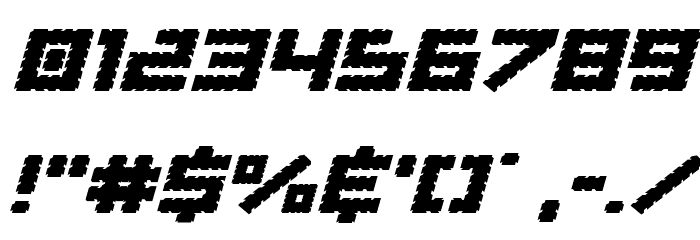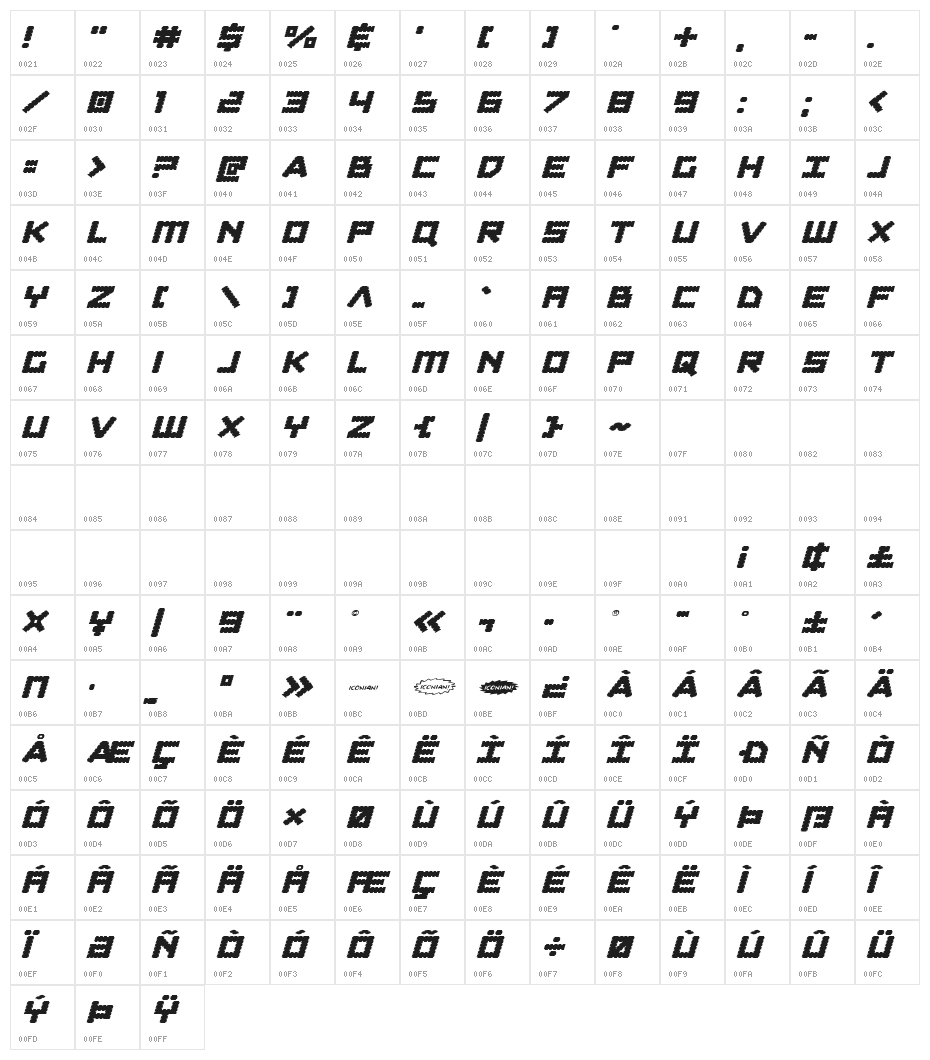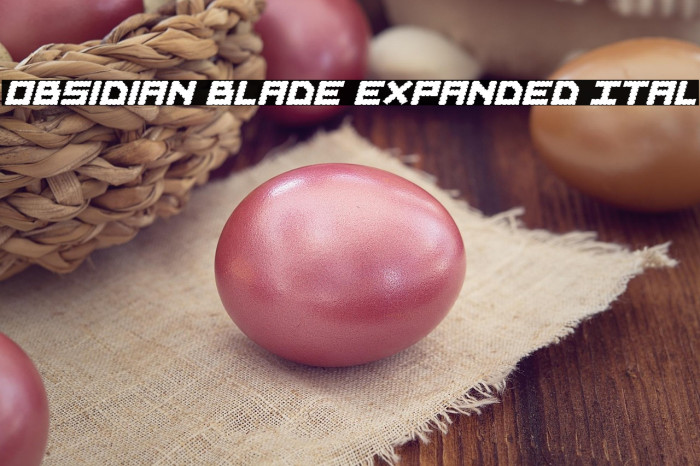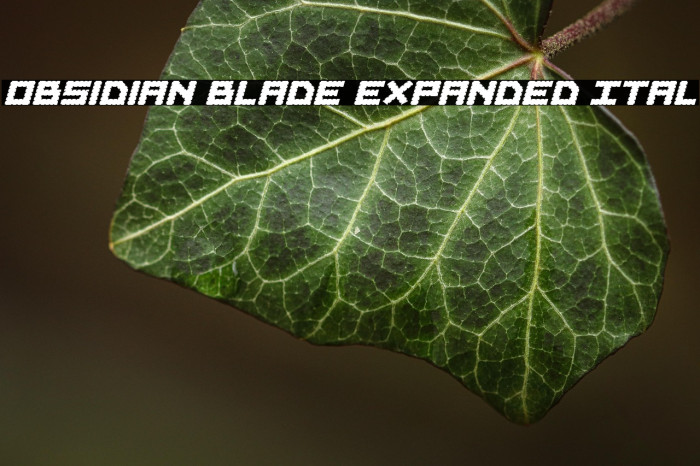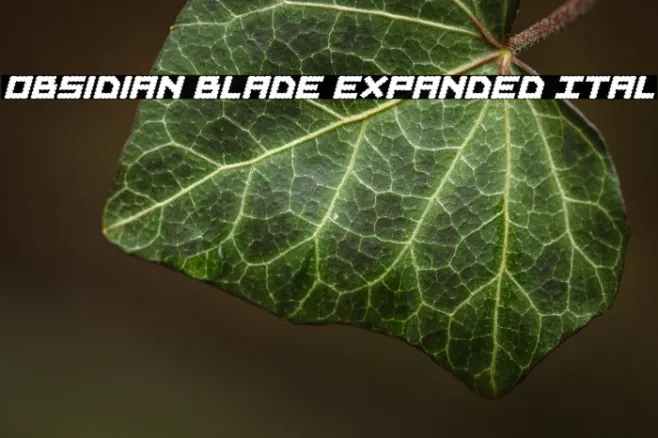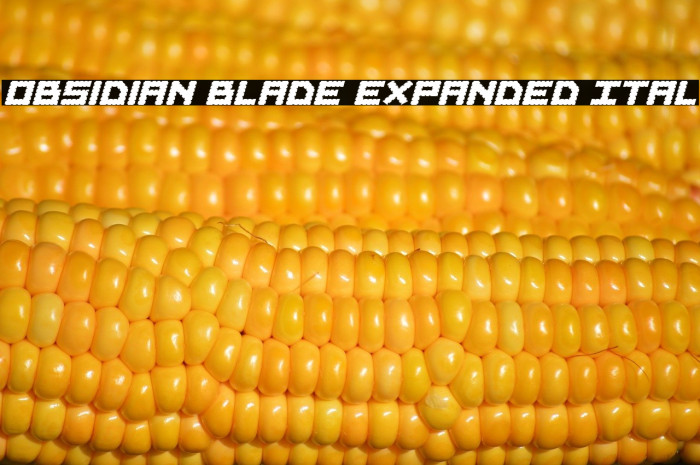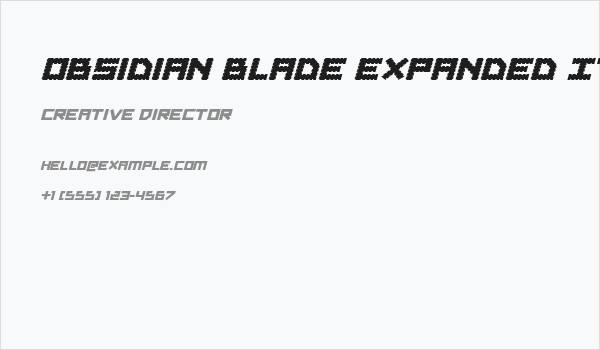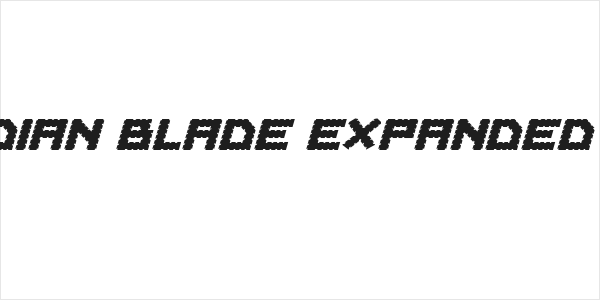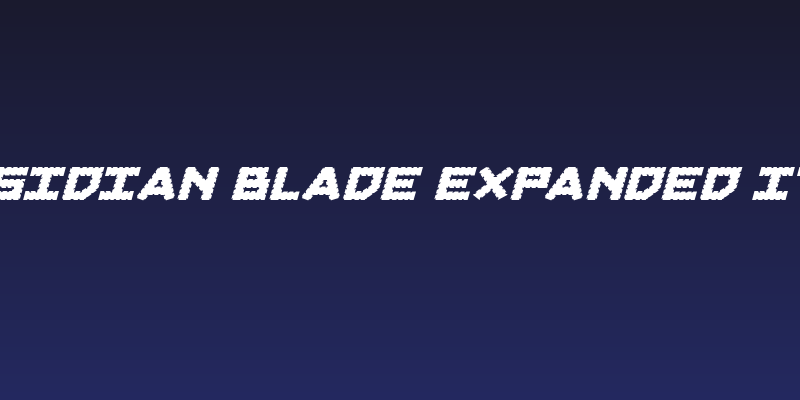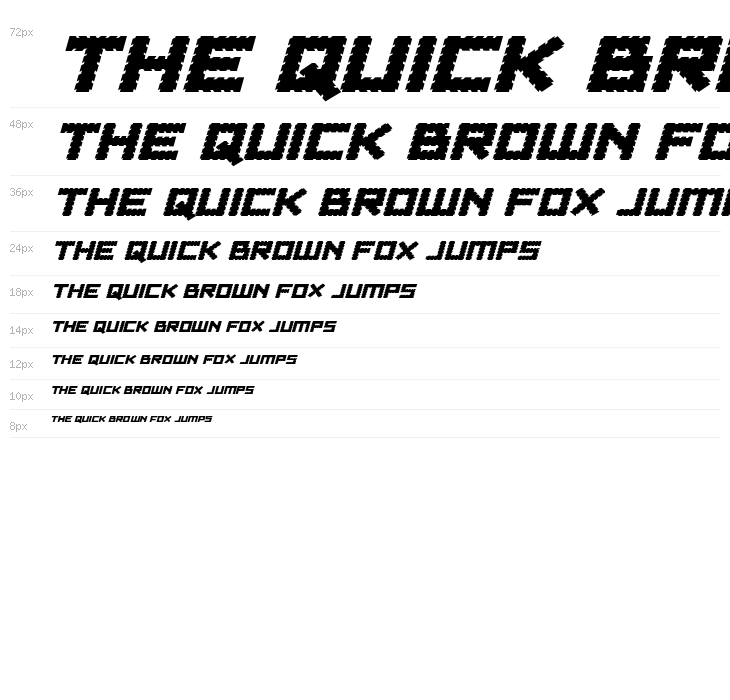
Obsidian Blade Expanded Ital Font
Obsidian Blade Expanded Ital Description
This font features a bold, angular design with a distinctive, jagged edge that gives it a dynamic and aggressive appearance. The characters are expanded and italicized, creating a sense of motion and energy. The uppercase letters are prominent and commanding, while the lowercase letters maintain the same sharp style. Numbers and special characters are consistent with the overall aesthetic, making them suitable for impactful displays. The font's unique style is reminiscent of futuristic or tech-inspired themes, making it ideal for projects that require a strong visual presence.
| Overall Style | Futuristic, Edgy |
| Proposed Projects | Ideal for video game titles, tech branding, posters, and any project needing a futuristic or edgy look. |